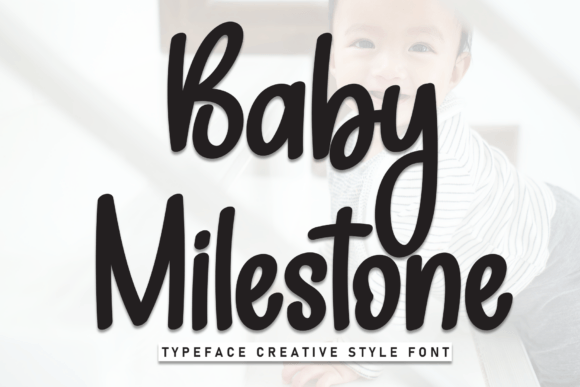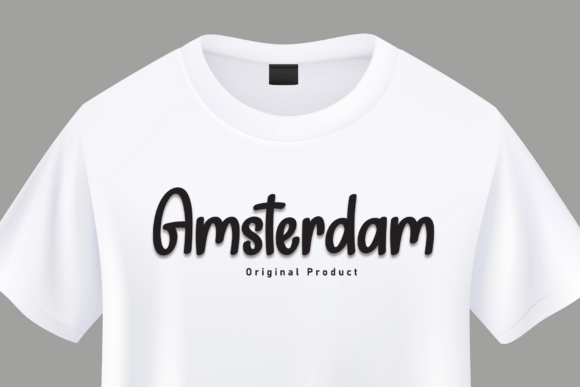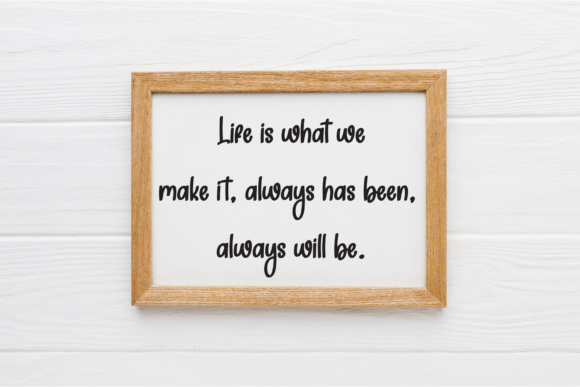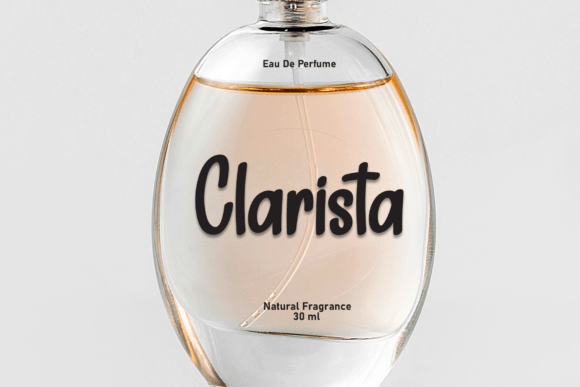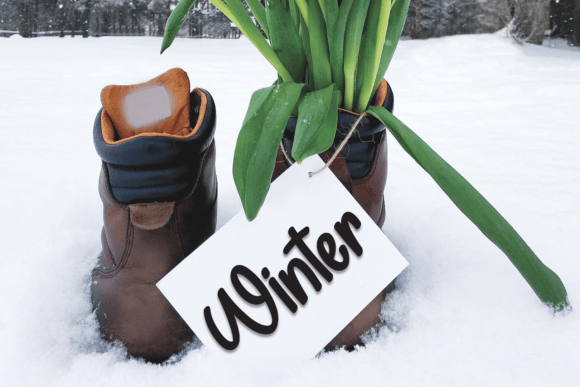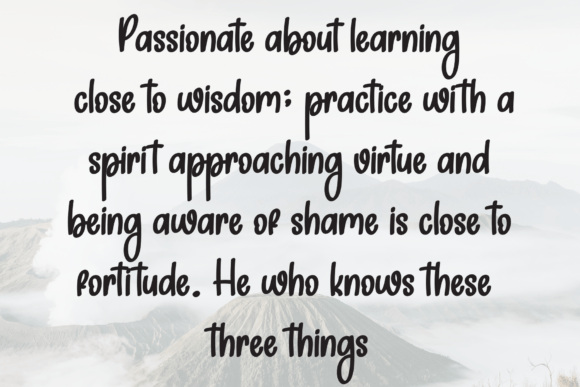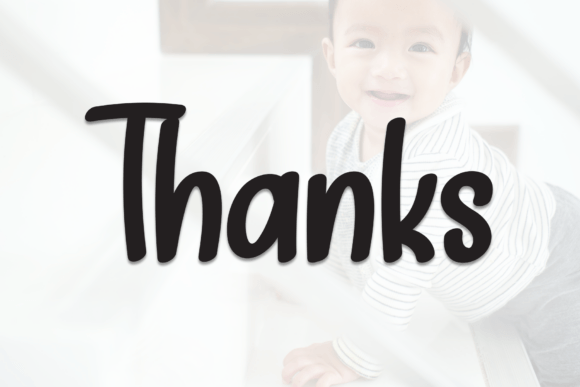
The Magic of Capturing Life’s Moments with the Baby Milestone Font
Have you ever sat down with a cup of coffee, a blank journal, and a bundle of adorable baby photos, only to be overcome with the urge to create something truly special? For many of us, those early days of parenthood are a whirlwind of love, laughter, and endless memories. And what better way to capture those moments than with the perfect font?
Enter the Baby Milestone Font, a beautiful script font designed to bring a touch of elegance to any creative project. Whether you’re a seasoned designer or a DIY enthusiast, this font is the perfect tool to help you turn your ideas into stunning works of art. With its unique blend of style and sophistication, the Baby Milestone Font is a valuable asset for any designer looking to add a personal touch to their projects.
Baby Milestone Font Key Features
- Unique Characteristics: The Baby Milestone Font features a unique, hand-drawn design that makes it perfect for capturing special milestones and memories. Its whimsical and playful style adds a touch of warmth and personality to any project.
- Character Set: The font includes a comprehensive character set, including uppercase and lowercase letters, numbers, and special characters, making it suitable for a wide range of applications, from scrapbooking to digital design.
Baby Milestone Font Review
Overall, I found the Baby Milestone Font to be a charming and emotive script font designed specifically for capturing precious moments of a child’s growth. It’s perfect for any parent who wants to commemorate their little one’s milestones.
- Expressive and whimsical design that captures the playfulness of childhood
- Includes a range of swashes and flourishes that add a touch of elegance
- Supports a variety of languages, making it suitable for parents from diverse backgrounds
- Features a range of special characters, including birthday candles and baby blocks
- Limited font sizes and styles, which may limit its versatility in certain applications
- No bold or italic variants, which may affect readability in certain contexts
- Some characters may appear pixelated when enlarged or used in large font sizes
Overall, I think the Baby Milestone Font is a delightful addition to any parent’s design arsenal. While it has some limitations, its unique charm and expressive design make it a great choice for capturing the joy and wonder of a child’s milestones.